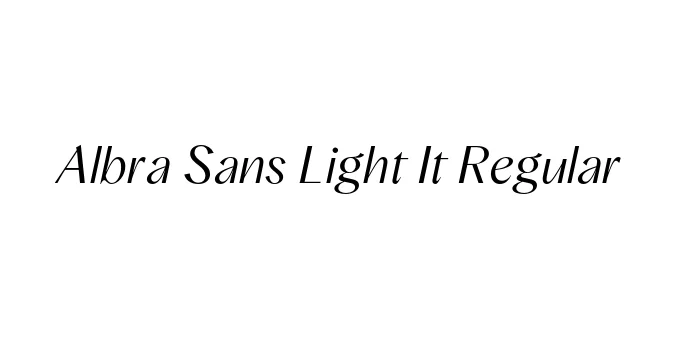
Albra Sans Light It Regular
Designed by BumbumType
Albra Sans Light It Regular is a sophisticated member of the expansive Albra collection, a typeface family designed to bridge the gap between timeless elegance and modern functionality. This specific variant, characterized by its delicate weight and slanted profile, offers a graceful aesthetic that maintains exceptional legibility even at smaller sizes. The design focuses on balanced proportions and a high x-height, making it a versatile tool for designers who require a font that feels both contemporary and classic.
As part of the Albra Sans sub-family, this light italic style excels in editorial environments where visual hierarchy and typographic nuance are paramount. Its clean lines and airy structure provide a refreshing contrast to heavier weights, making it an ideal choice for body copy in high-end magazines, luxury branding, and minimalist user interfaces. The typeface embodies a minimalist European sensibility, ensuring that every character contributes to a harmonious and professional reading experience.
Albra Sans Light It Regular Best Uses
Perfect for long-form articles in fashion and lifestyle magazines that require a sophisticated touch.
Ideal for high-end corporate identities seeking a clean, professional, and modern look.
Excellent for UI elements or body text in minimalist web designs where clarity is key.
Suitable for luxury product advertisements that prioritize whitespace and refined typography.